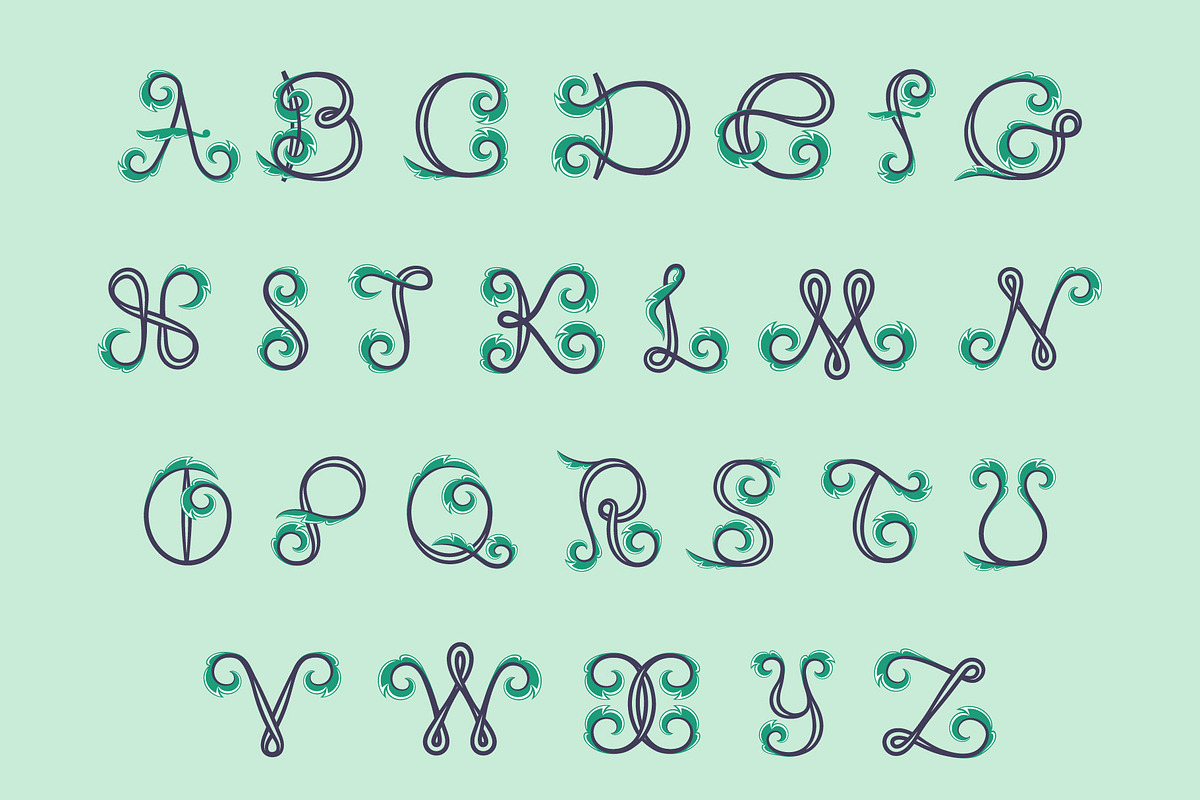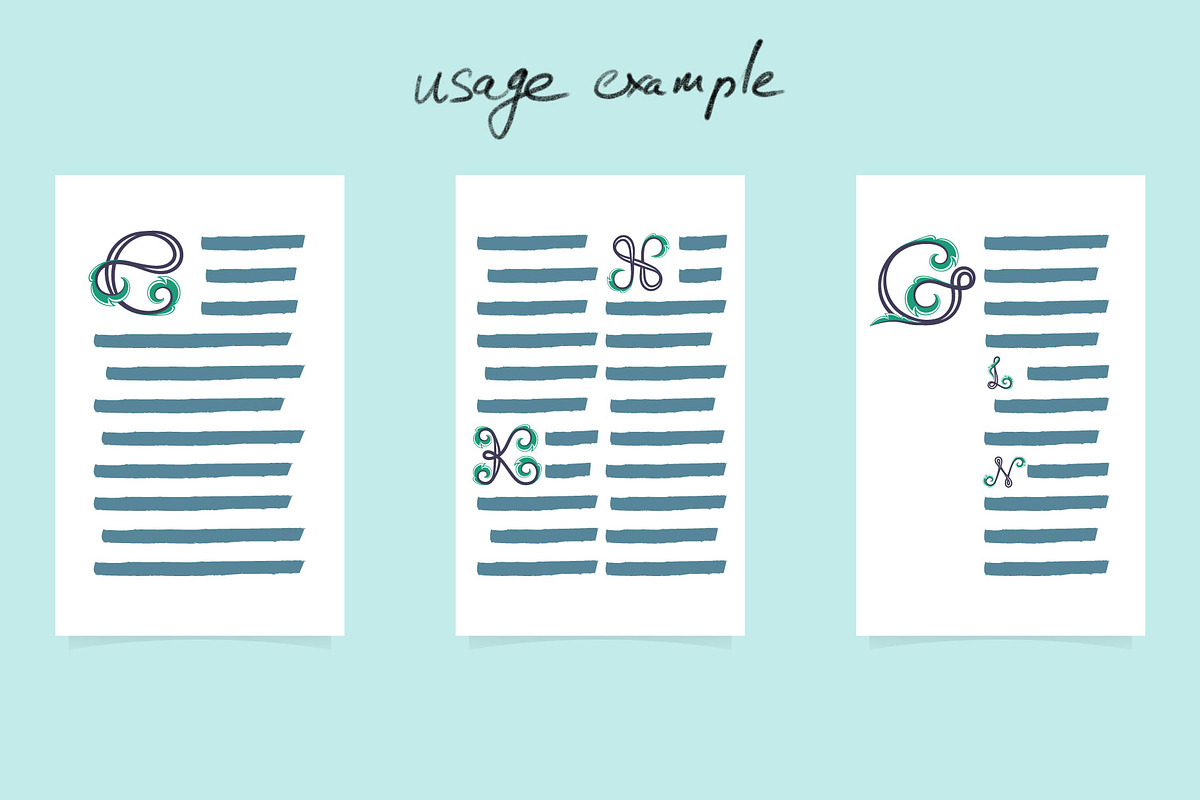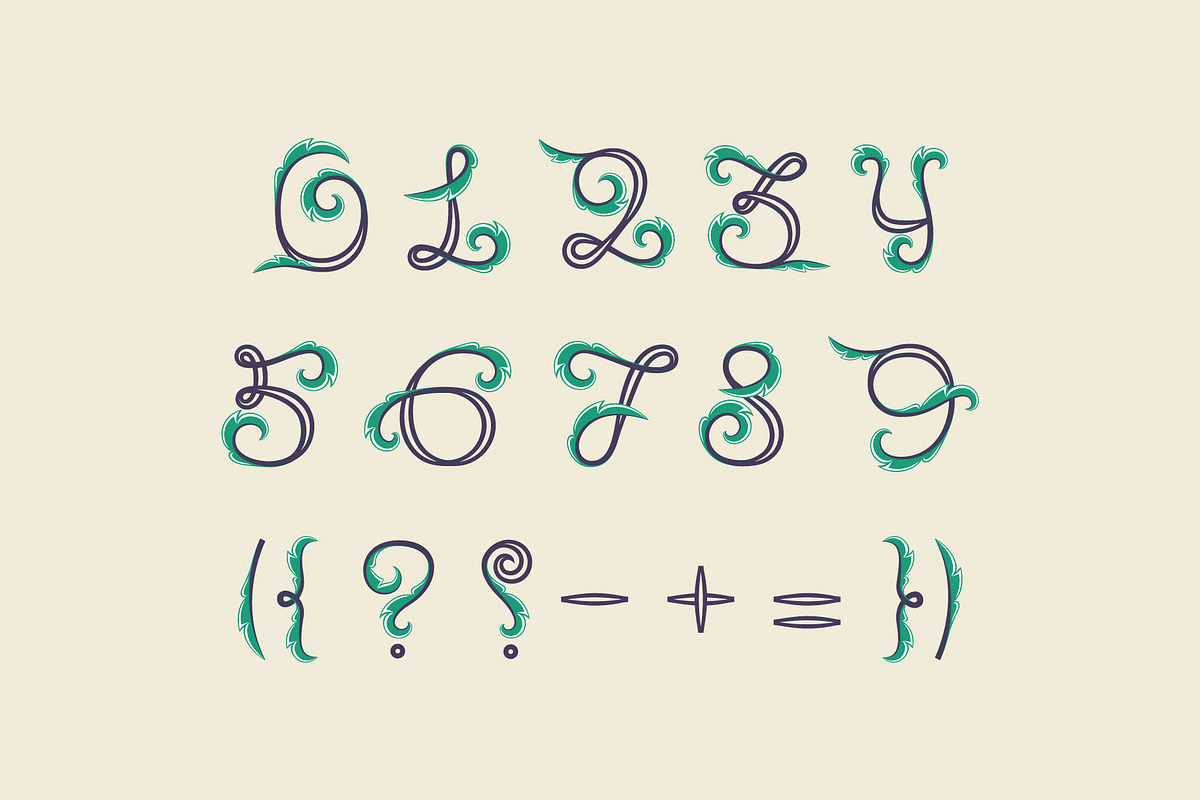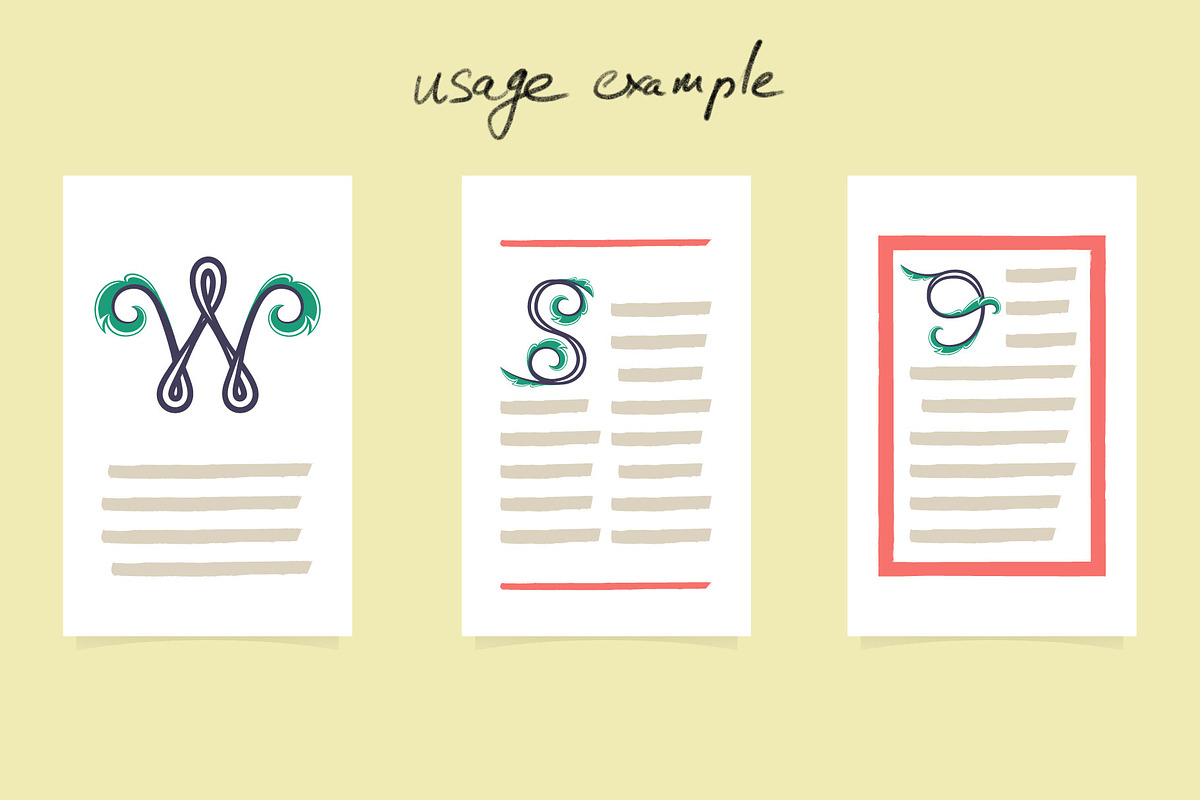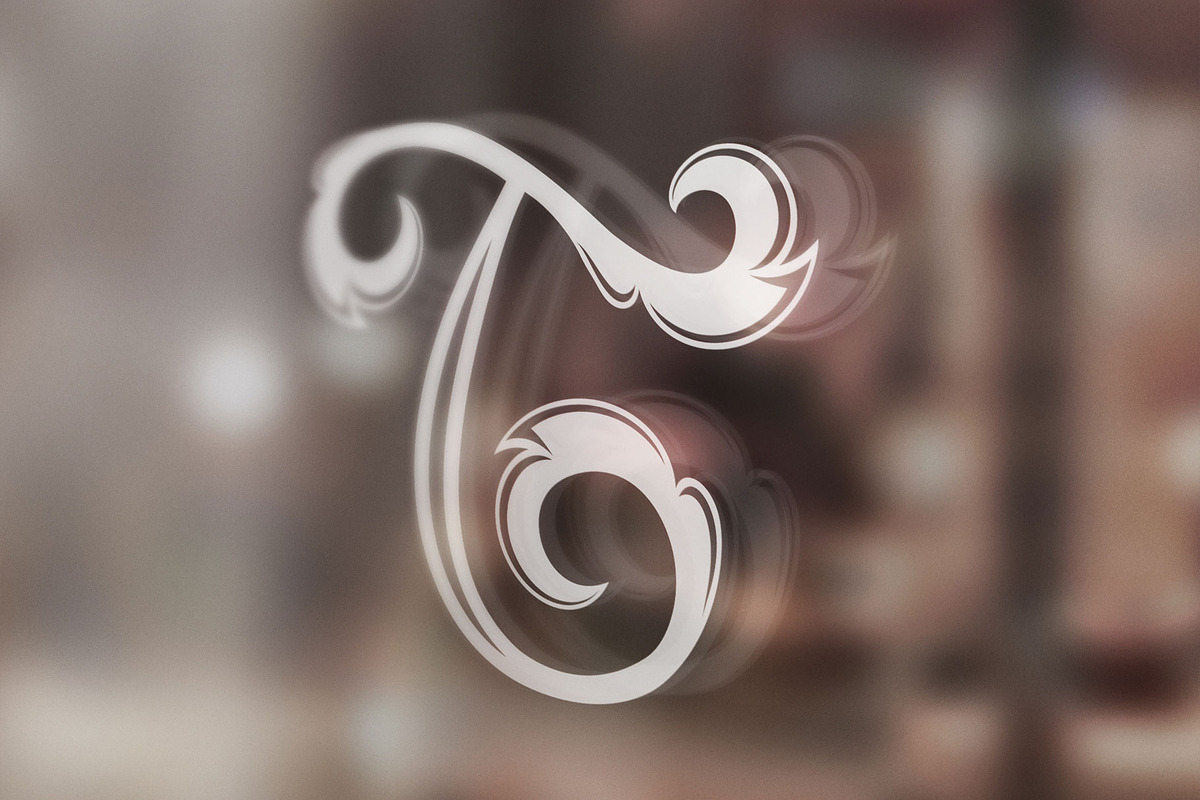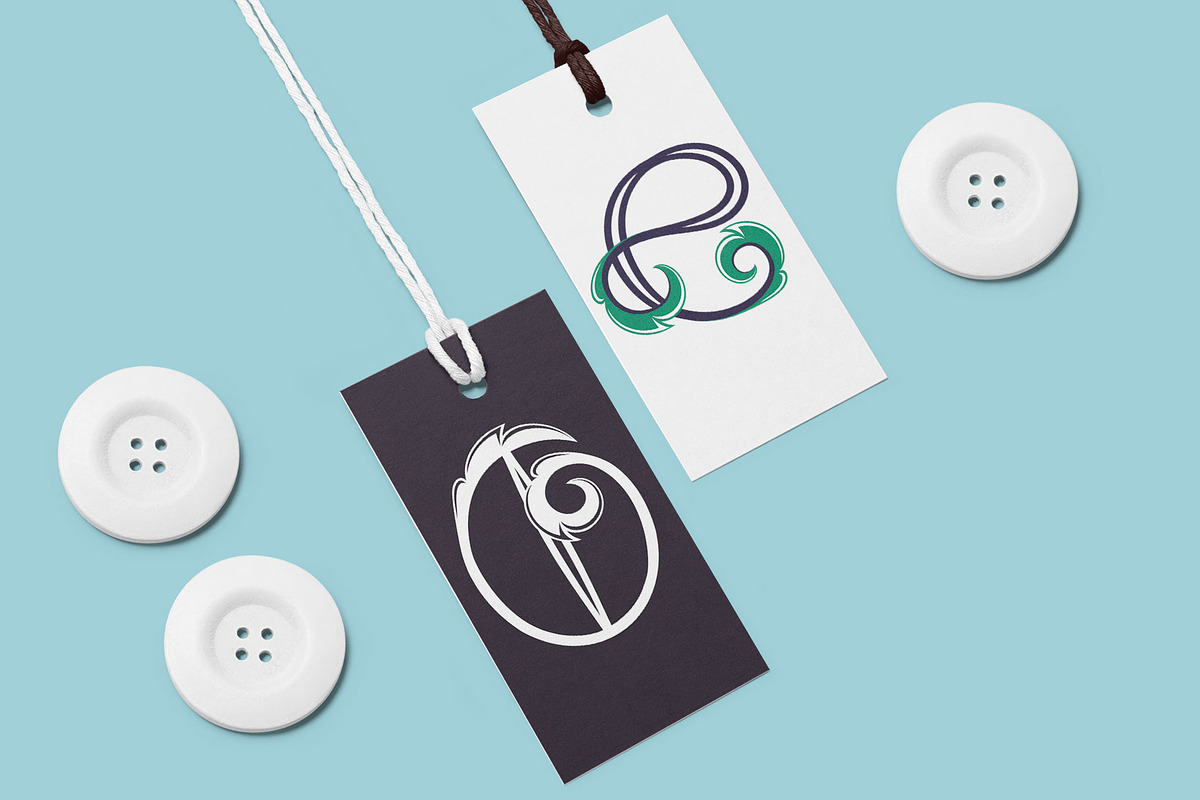
Foliageant font
Uppercase letters from A to Z (26 characters) + numbers in floral vintage style. Premium design template elements for your identity, package, book, diploma, etc.
Font in colored and monochrome versions.
Foliageant font by kaershop fits naturally into Branding, posters, packaging, typography.